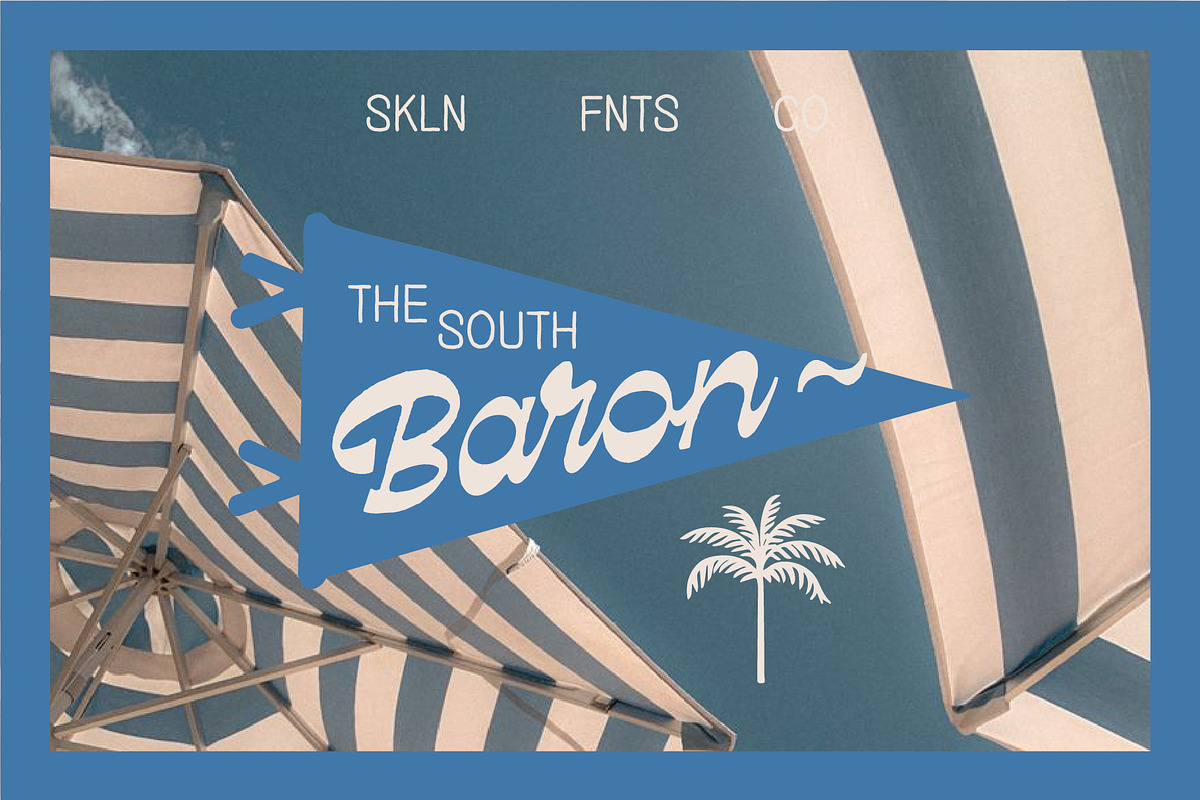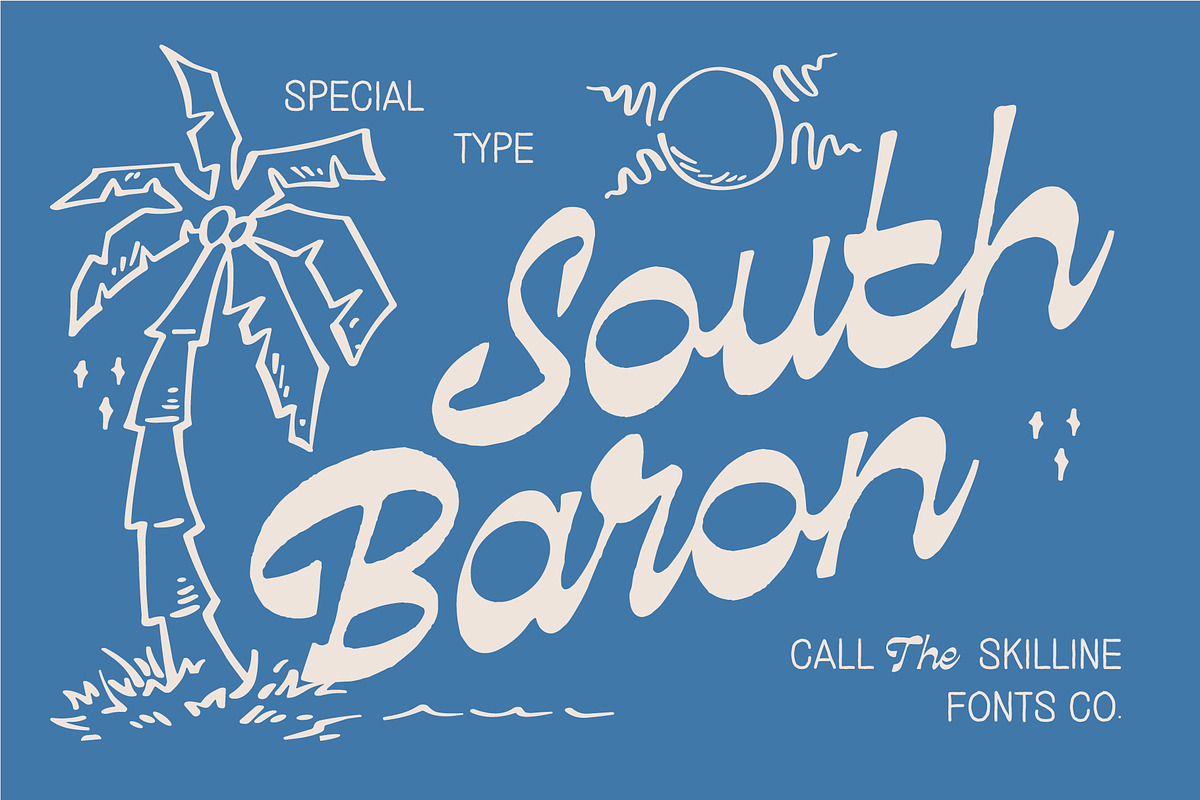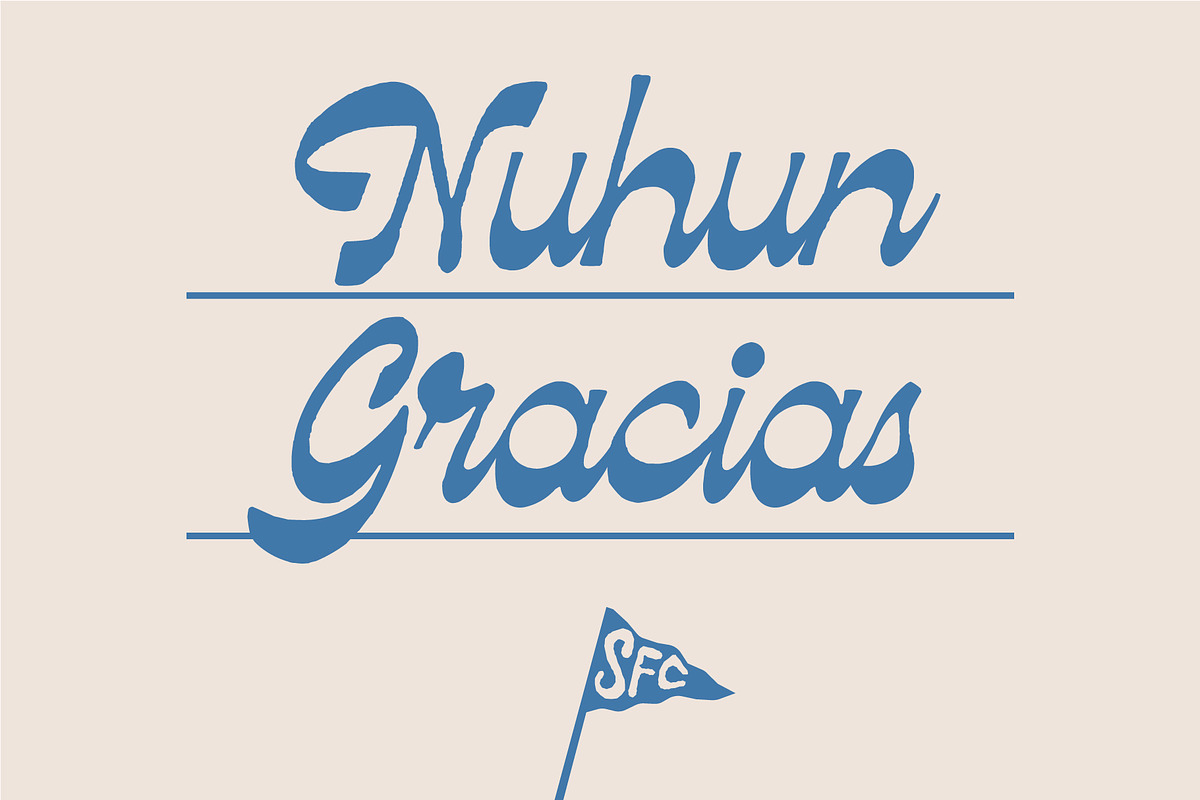
SFC South Baron
South Baron Script is a breezy hand-drawn script font that captures the effortless charm of coastal lettering, retro signage, and nostalgic summer aesthetics. Designed with smooth strokes and an organic handwritten rhythm, it brings a warm, relaxed personality to every project while maintaining clarity, balance, and visual flow.
Smooth Handwritten Script Style